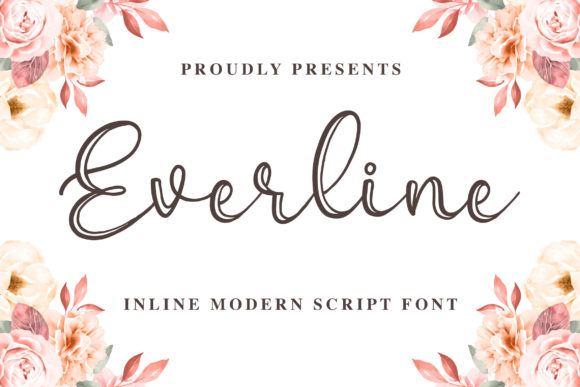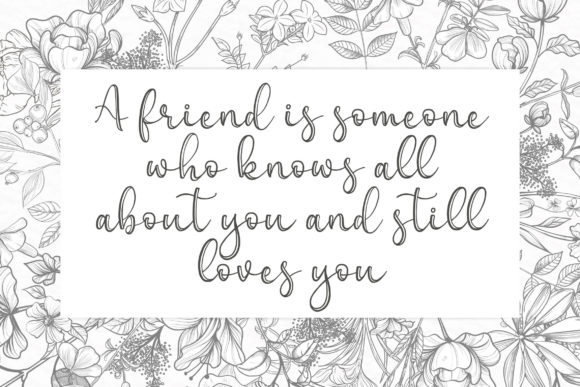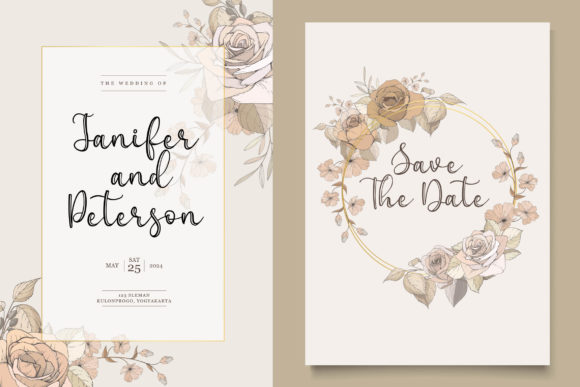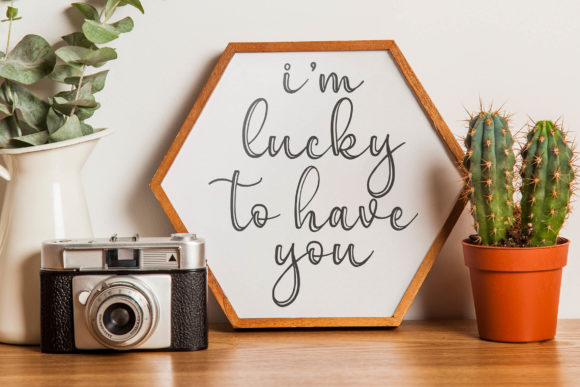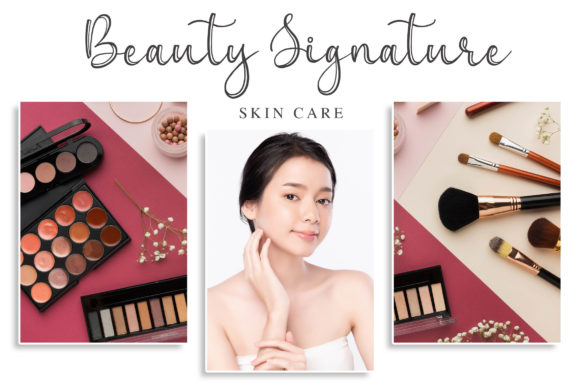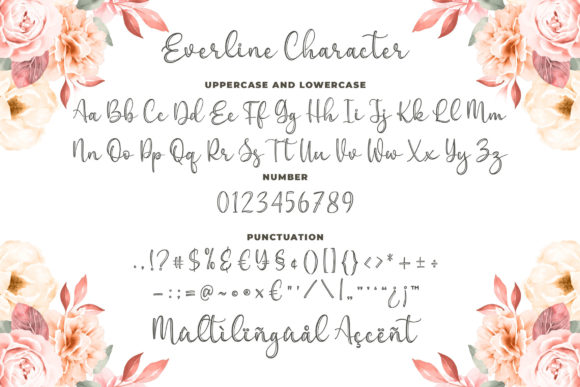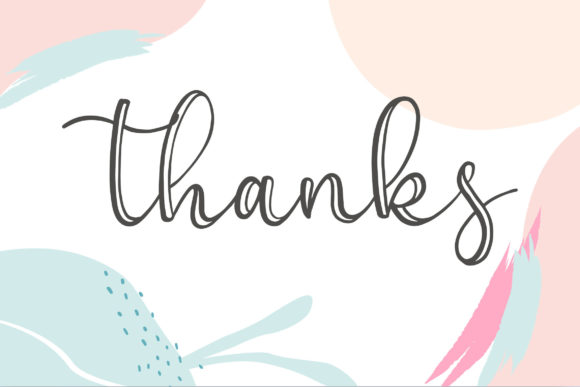
Everline Font
About Everline Font
Everline is a sweet, round lettered handwritten font. It looks stunning on wedding invitations, thank you cards, quotes, greeting cards, logos, business cards and every other design which needs a handwritten touch.